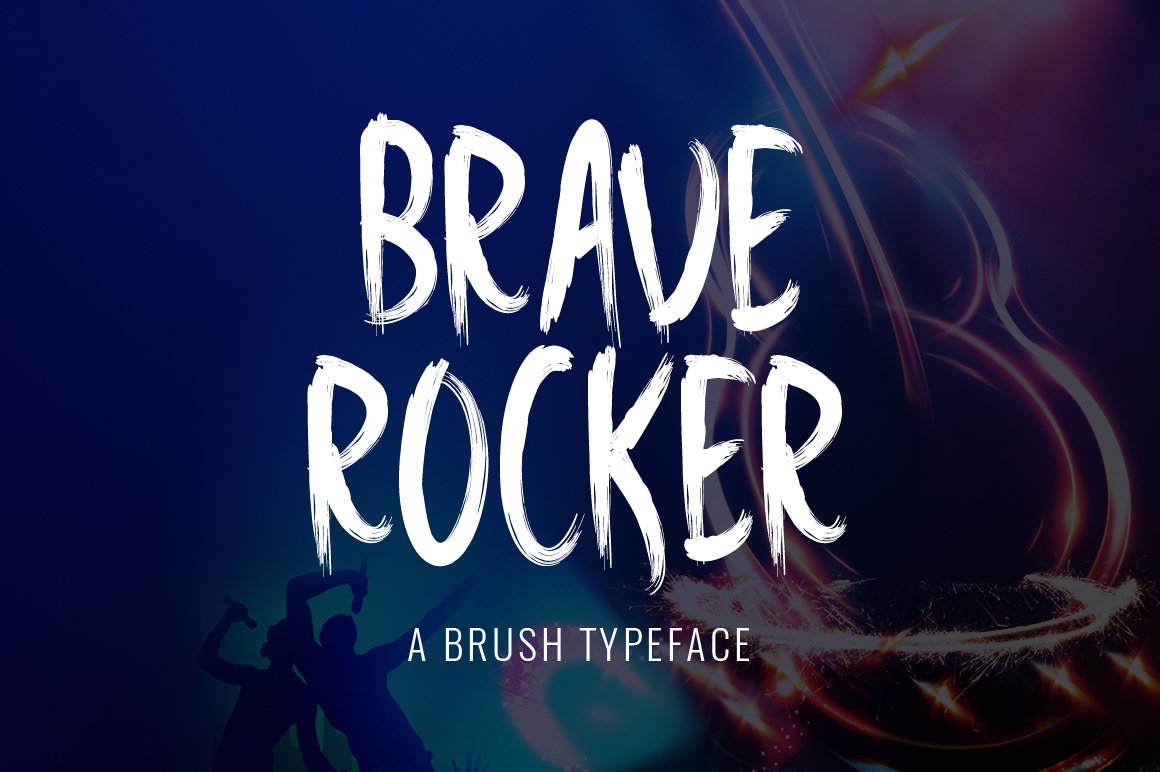
The Unbridled Creativity of Brave Rocker Font
You know that feeling when you’re working on a design project, and you just can’t seem to nail the perfect font? The words won’t flow, the style won’t stick, and you’re left staring at a blank page feeling frustrated and stuck. It’s moments like these that remind us why we love design in the first place – the thrill of the hunt for that elusive perfect font.
Enter Brave Rocker Font, a fun and rough brush font that’s ready to shake things up. Designed to add a touch of edginess and personality to your designs, Brave Rocker Font is perfect for creatives who want to break free from the ordinary and make a statement. Whether you’re working on a bold brand identity or a quirky graphic project, this font is sure to be your new best friend.
• Unique Characteristics: The Brave Rocker Font features a bold, rock-inspired design with a mix of uppercase and lowercase letters, making it perfect for music-related projects, fashion brands, or any design that requires a bold statement.
• Font Style: Brave Rocker Font comes in 3 font styles: Regular, Bold, and Italic, allowing designers to choose the perfect style to match their design requirements.
• Scalability: Brave Rocker Font is designed to be highly scalable, making it suitable for use in various design applications, from small text to large headlines.
Designer Review: Brave Rocker Font
I recently had the chance to work with the Brave Rocker Font, and here’s my honest review.
The Brave Rocker Font has a unique and bold style that grabs attention. It’s perfect for music-related projects or anything that needs a touch of edginess. I particularly like the bold weights available, which add depth and character to text. Additionally, the font’s legibility is surprisingly good, making it suitable for longer blocks of text.
• Limited language support: Unfortunately, the Brave Rocker Font doesn’t cover a wide range of languages, which might be a limitation for global projects.
• No italic or oblique styles: While the bold weights are great, I would have liked to see some alternative styles like italic or oblique to add more versatility.
Overall, the Brave Rocker Font is a solid choice for projects that require a bold and edgy look. Its unique style and good legibility make it a great option for music-related projects or anything that needs a touch of attitude. However, its limitations might make it less suitable for global projects or those that require a wide range of font styles.
For a bold and eye-catching design, use the Brave Rocker Font in combination with bright colors and geometric shapes.
Experiment with different font sizes and styles to create visual interest and hierarchy in your design.
For a professional look, use the Brave Rocker Font in combination with a clean and simple design.
The Brave Rocker Font is ideal for:
• Music and entertainment branding
• Rock and roll-inspired designs
• Edgy and bold marketing materials
Remember to experiment with different font sizes and styles to create a unique and eye-catching design.
Q: What is the recommended font size and line height for the Brave Rocker Font?
The recommended font size for the Brave Rocker Font is between 12pt and 24pt, depending on the desired level of legibility and impact. A line height of 1.2 to 1.5 times the font size is also recommended to ensure proper spacing and readability. You can adjust these settings to suit your design needs and preferences.